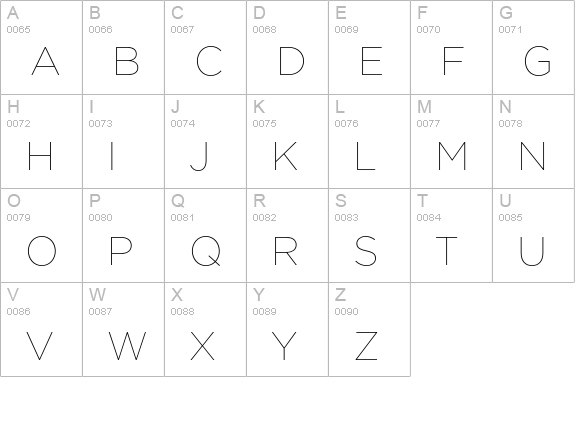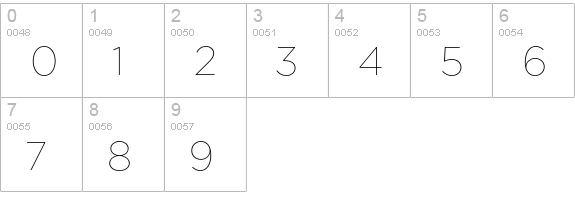
Gotham Thin is a delicate, low-contrast variant in the Gotham typeface family \xE2\x80\x94 well suited to fashion editorial, minimal branding, and high-contrast display.
Gotham Thin font is a sleek and modern typeface that exudes elegance and sophistication. With its delicate and refined letterforms, Gotham Thin is perfect for adding a touch of class to any design project. This font is ideal for creating minimalist logos, elegant invitations, and stylish branding materials. Best of all, Gotham Thin is available for free download at FontsMarket.com. Whether you're a professional designer or a casual creator looking to elevate your projects, this font is a must-have in your collection. Don't miss out on the opportunity to enhance your designs with the timeless beauty of Gotham Thin. Download it now and let your creativity shine!